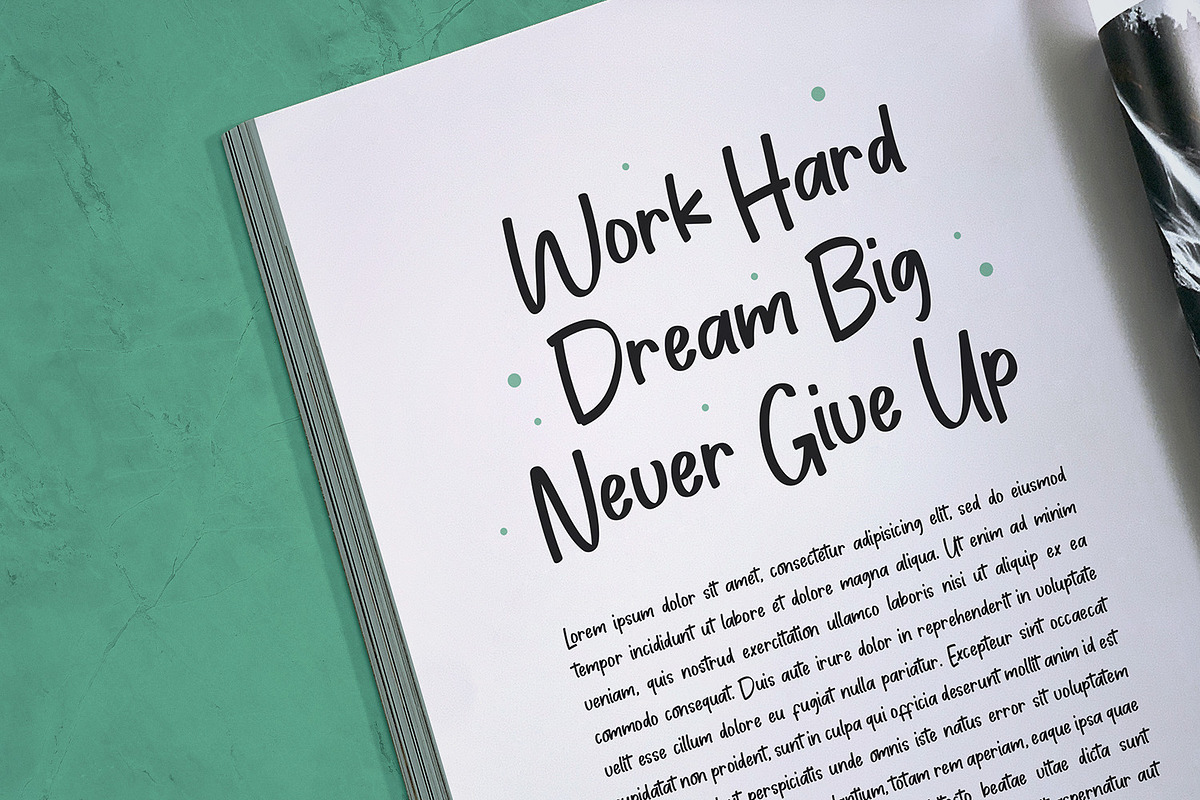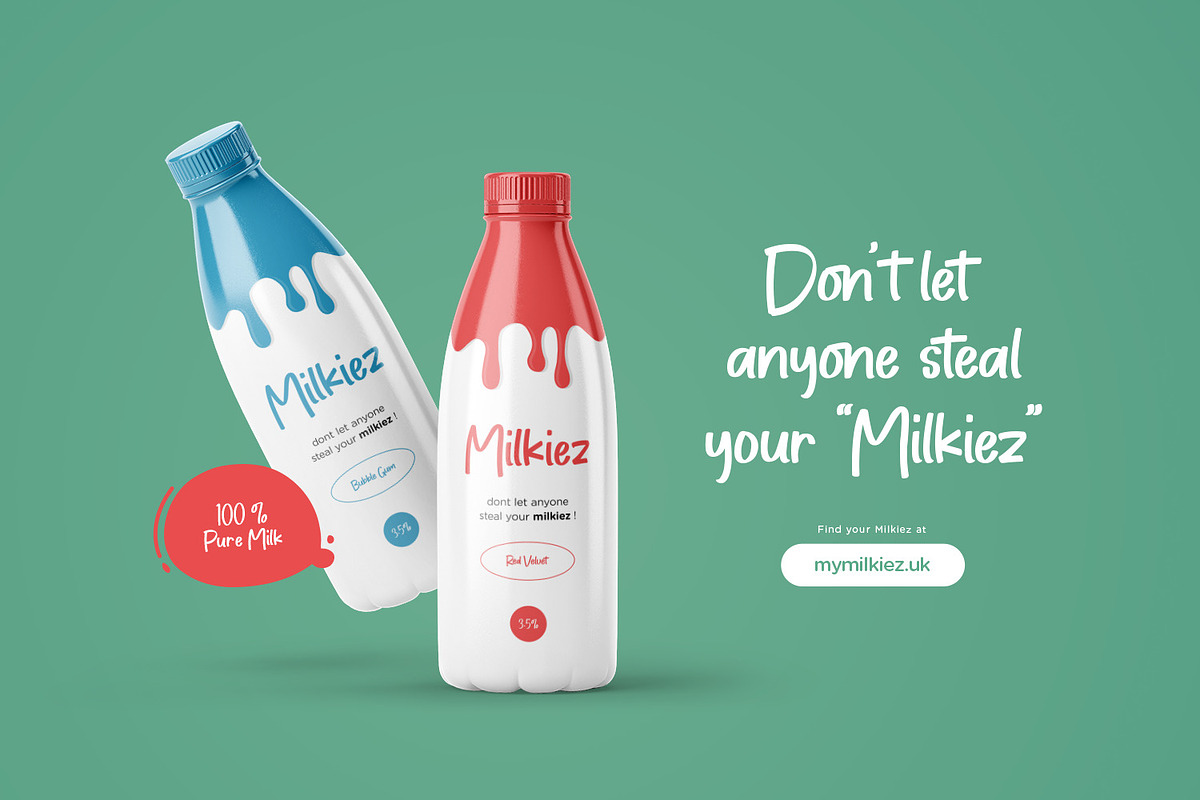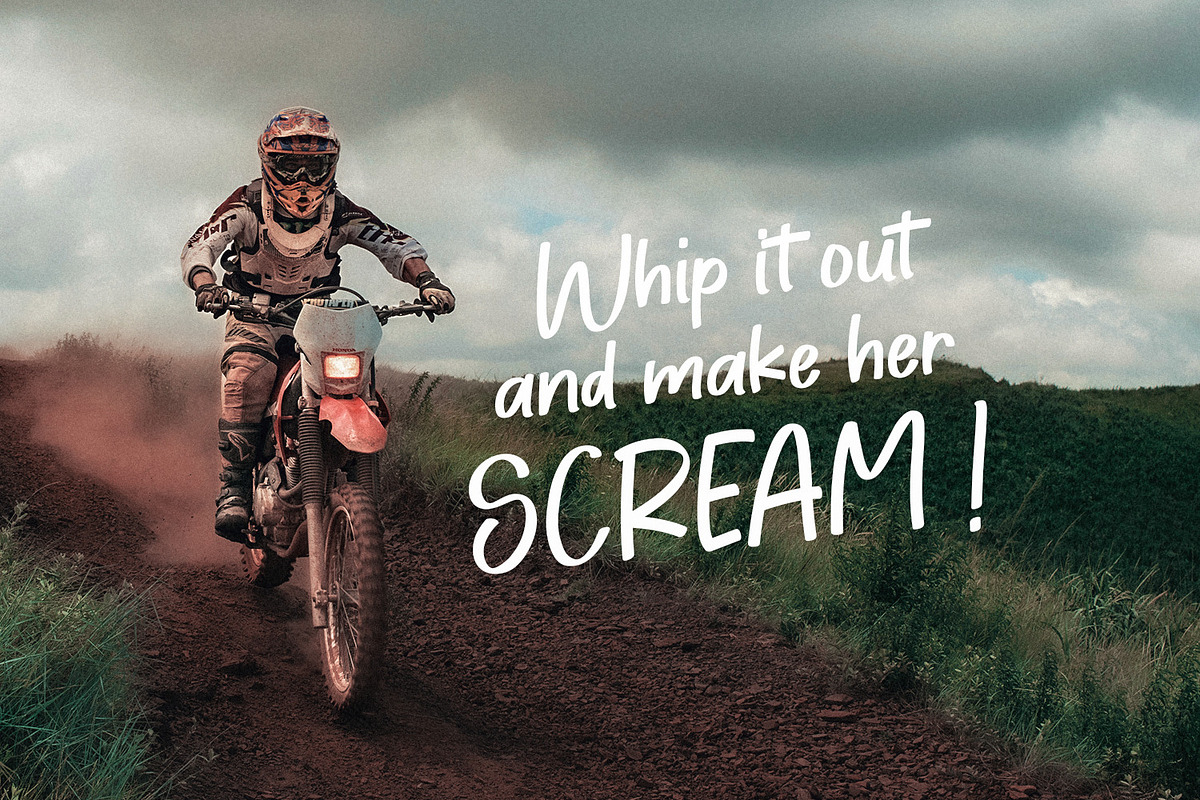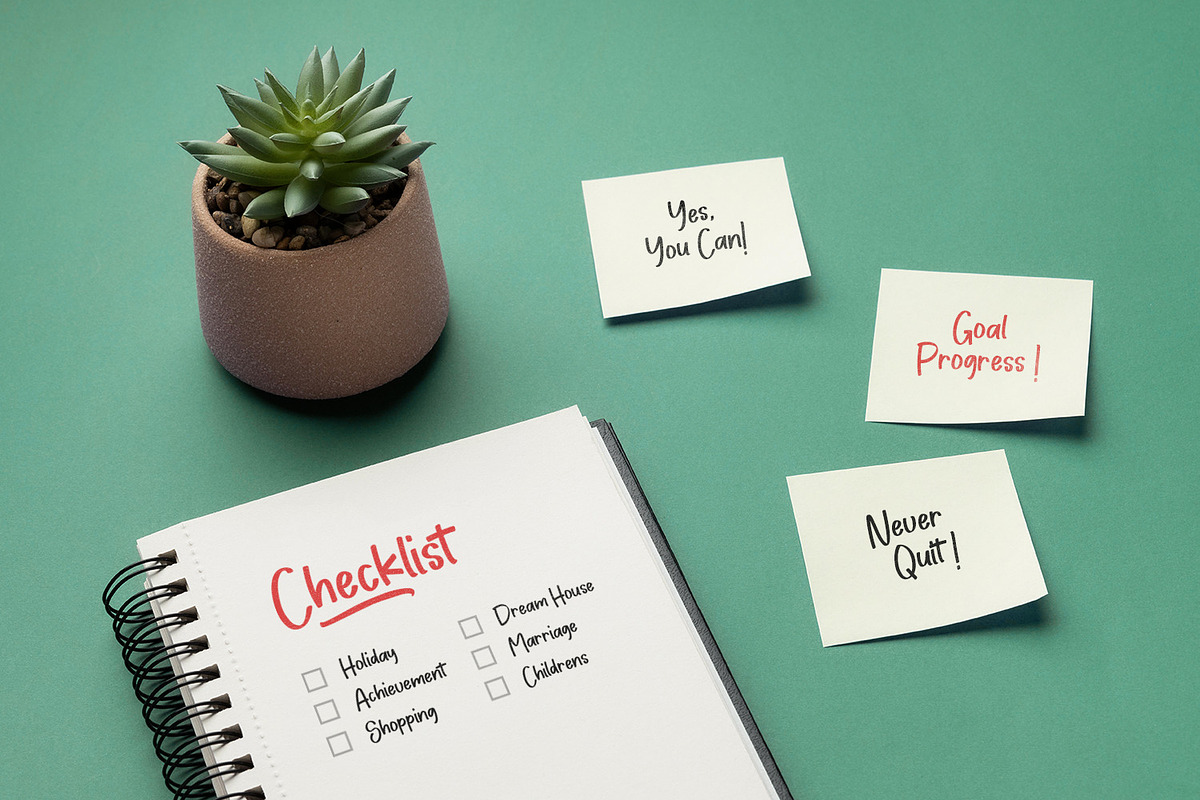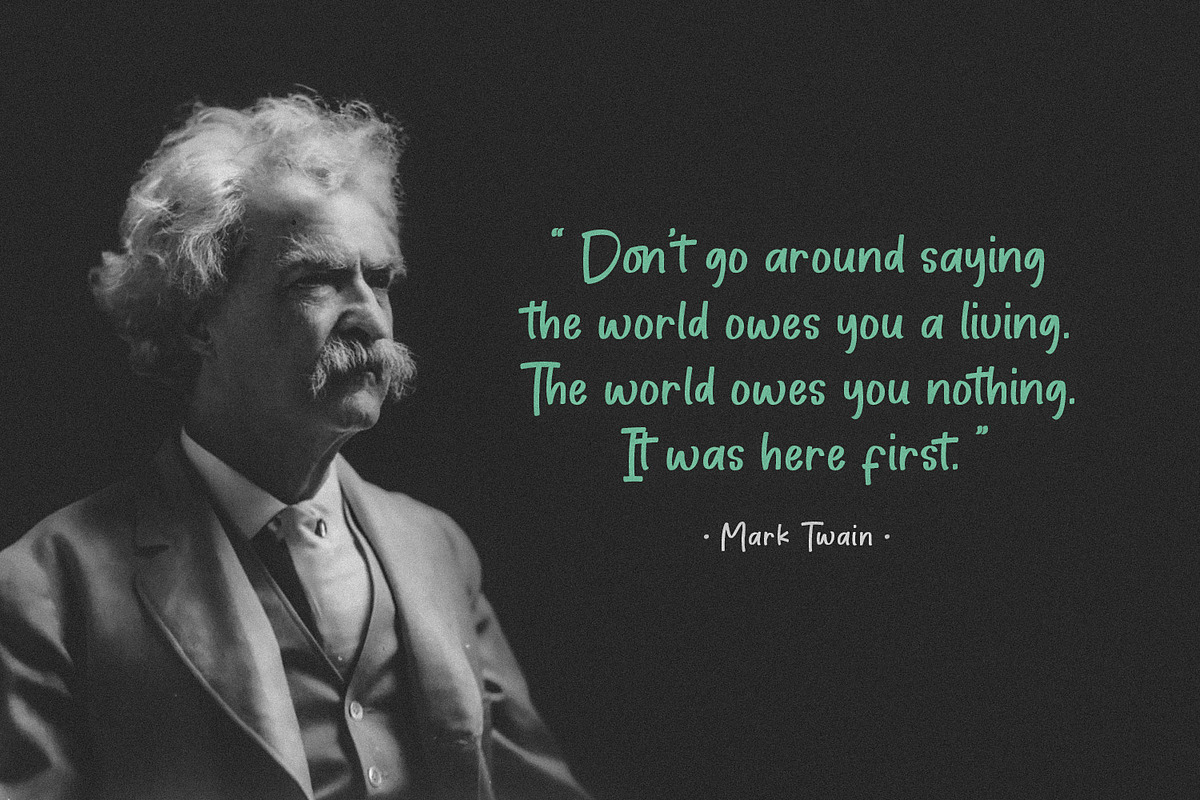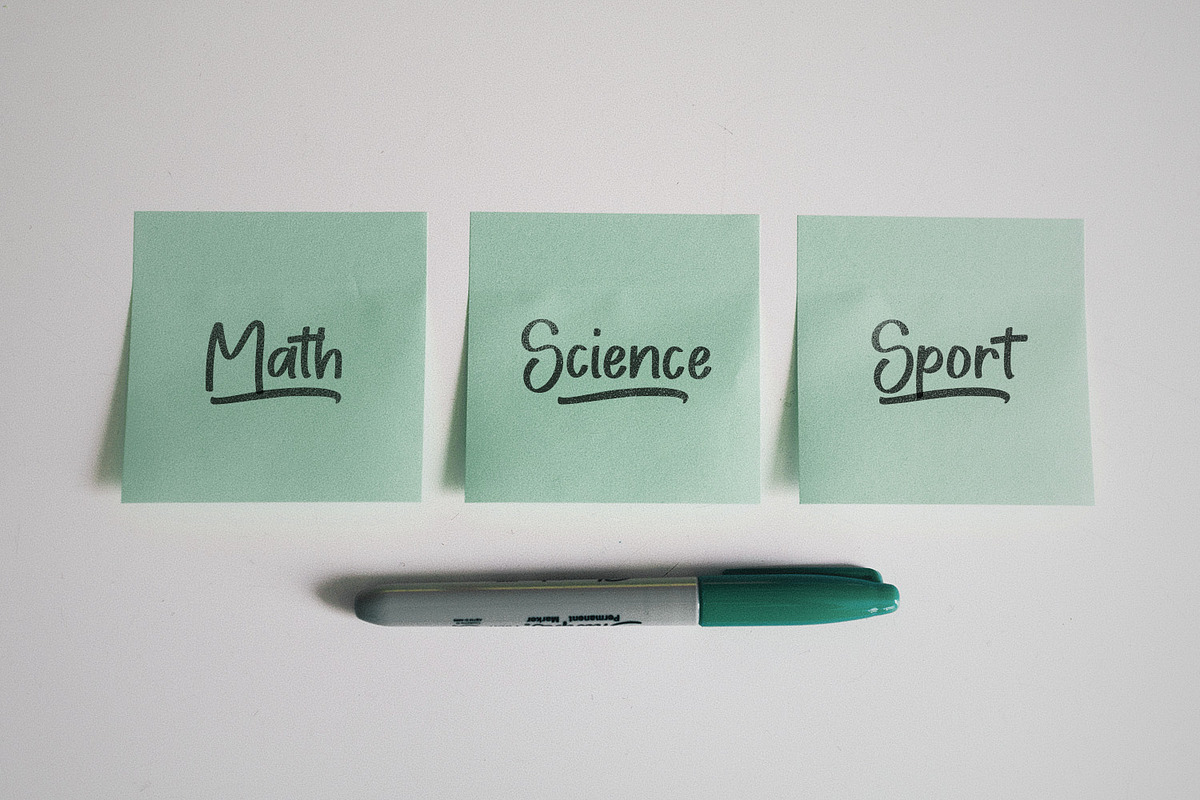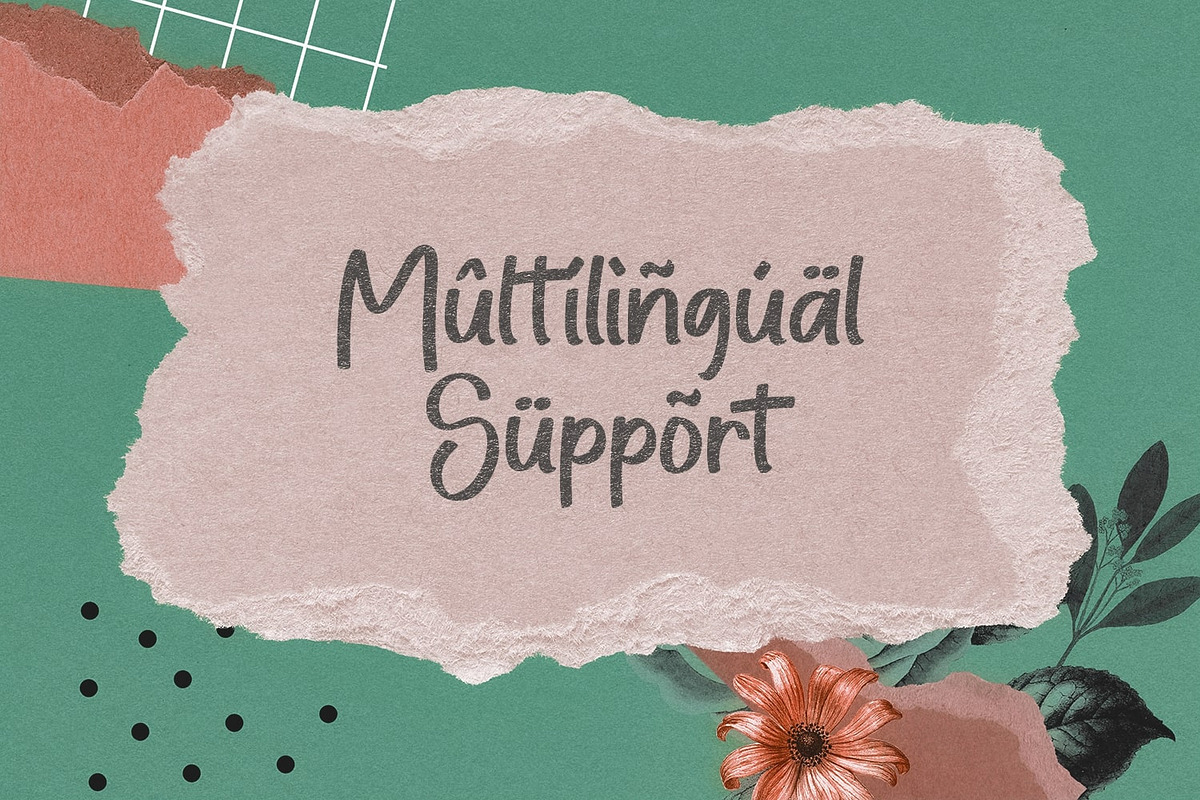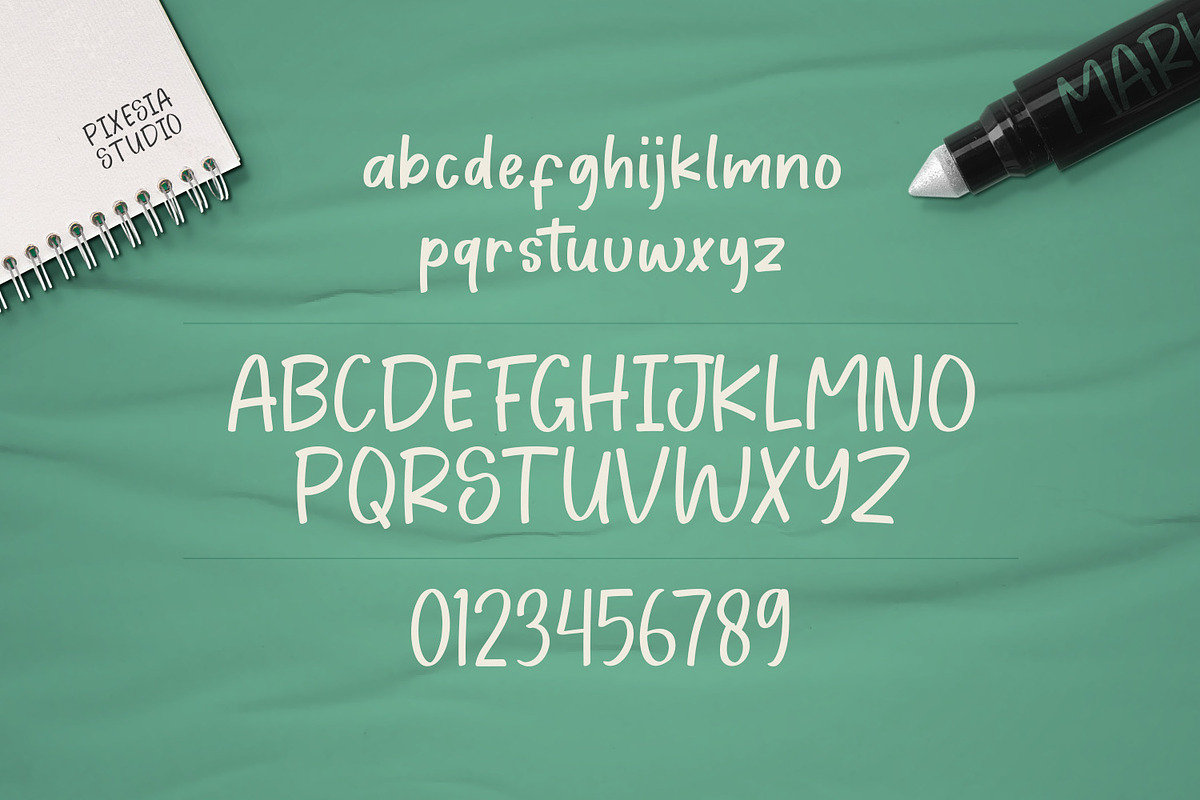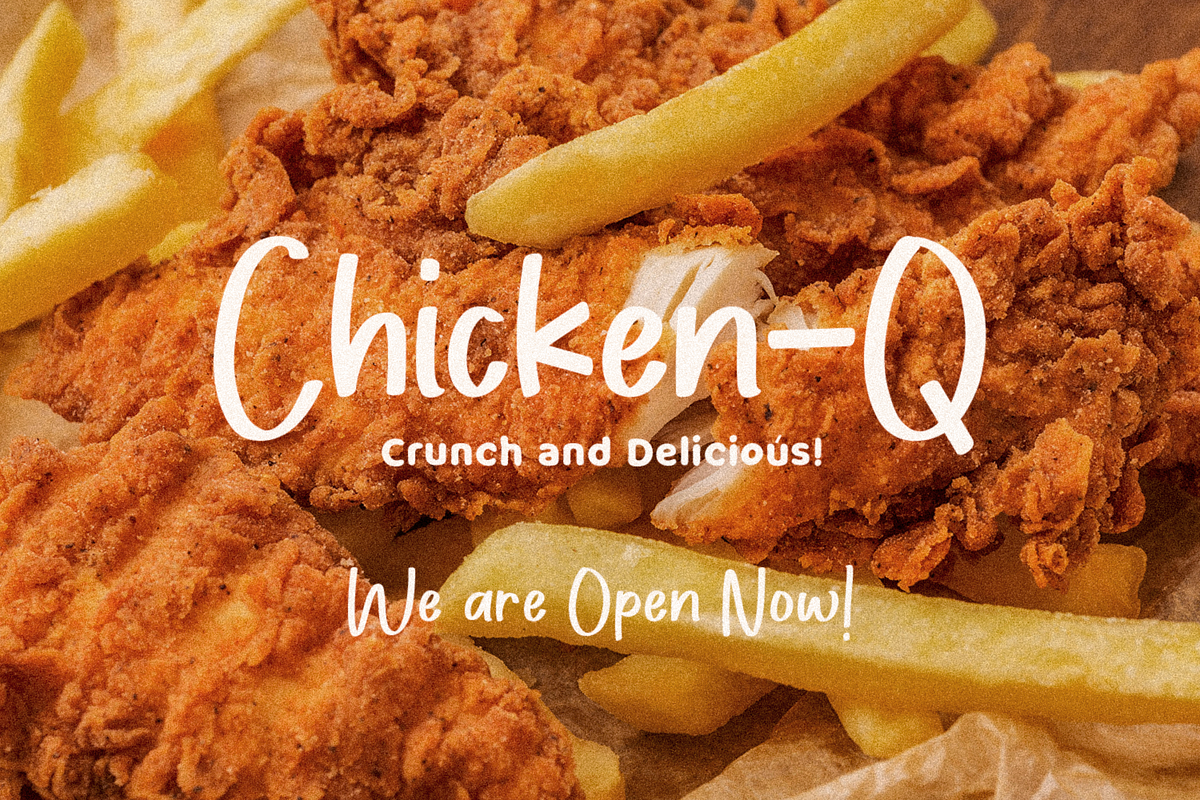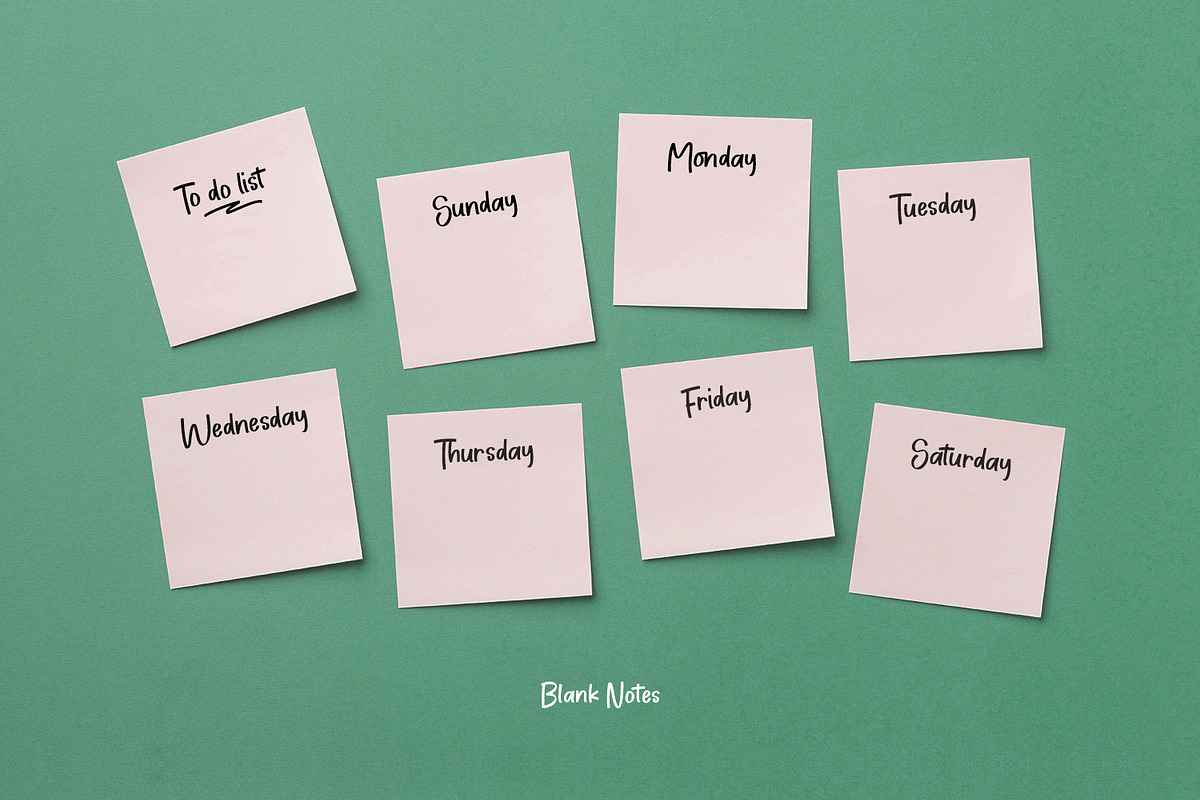
Blank Notes Handwritten Marker Font
Introducing Blank Notes - A Handwritten Marker Font
Blank Notes is a bold and playful handwritten marker font. It's created with a natural and unique style and has beautiful and neat characters. This font is perfect for digital notes, logotype, quotes design, book cover, t-shirt design, magazine titles, food menu, poster, kids projectbranding, social media, crafty DIY projects or anything. Add it to your most creative ideas and notice how it makes them come alive!